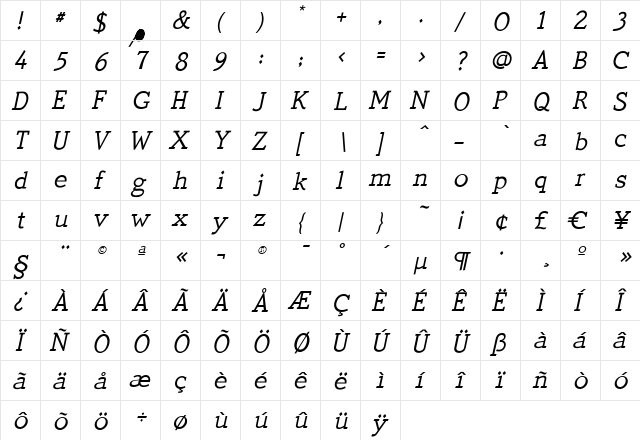
QuickType Plain Italic
Design Context for QuickType Plain Typeface
QuickType Plain is a composed and adaptable typeface that performs quietly and consistently across a wide range of design contexts. The dynamic lean of this cut emphasises speed and emphasis in any layout.
Pro Tip: Use QuickType Plain for emphasis, pull quotes, and subheadings where its slanted energy can add rhythm to the layout.